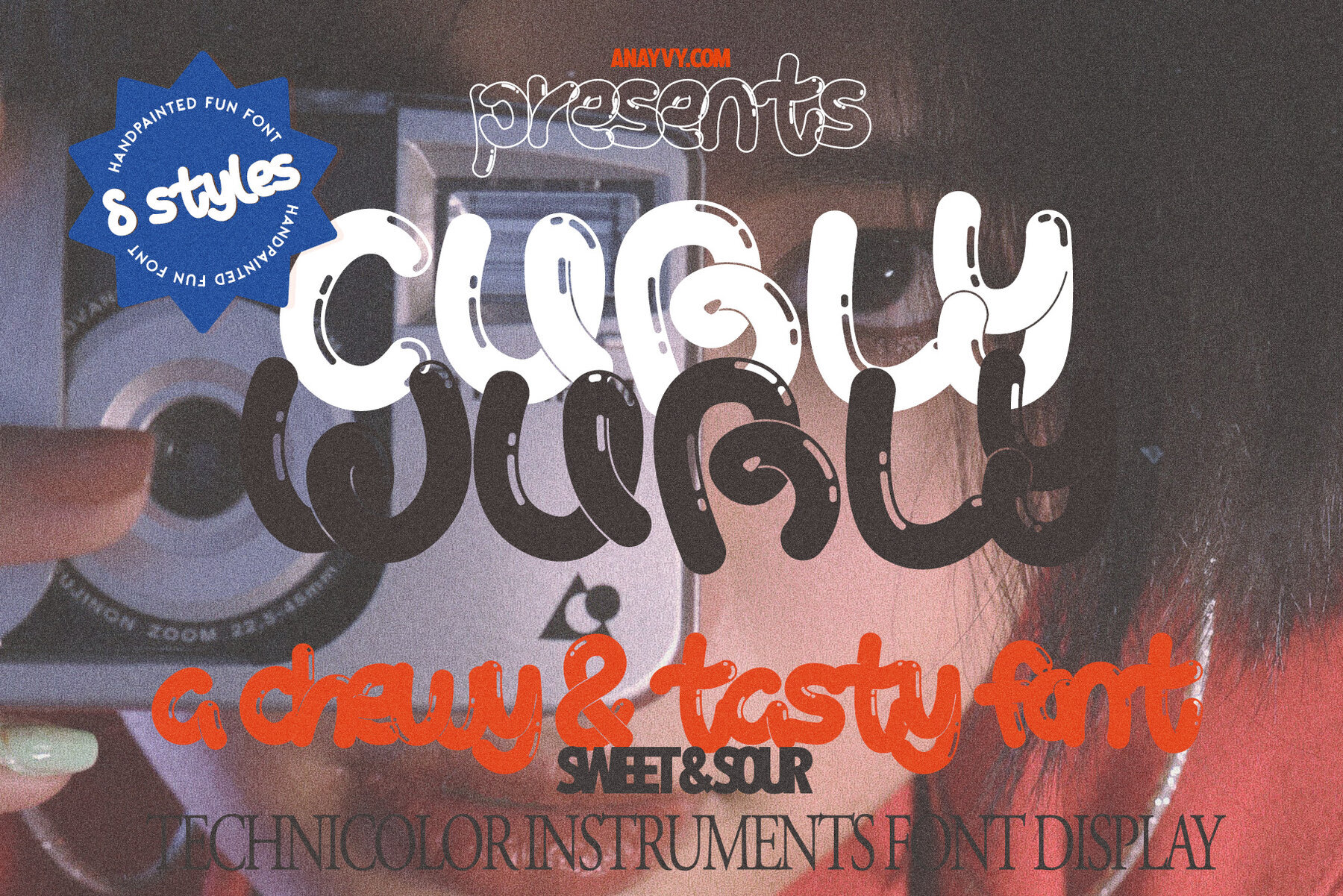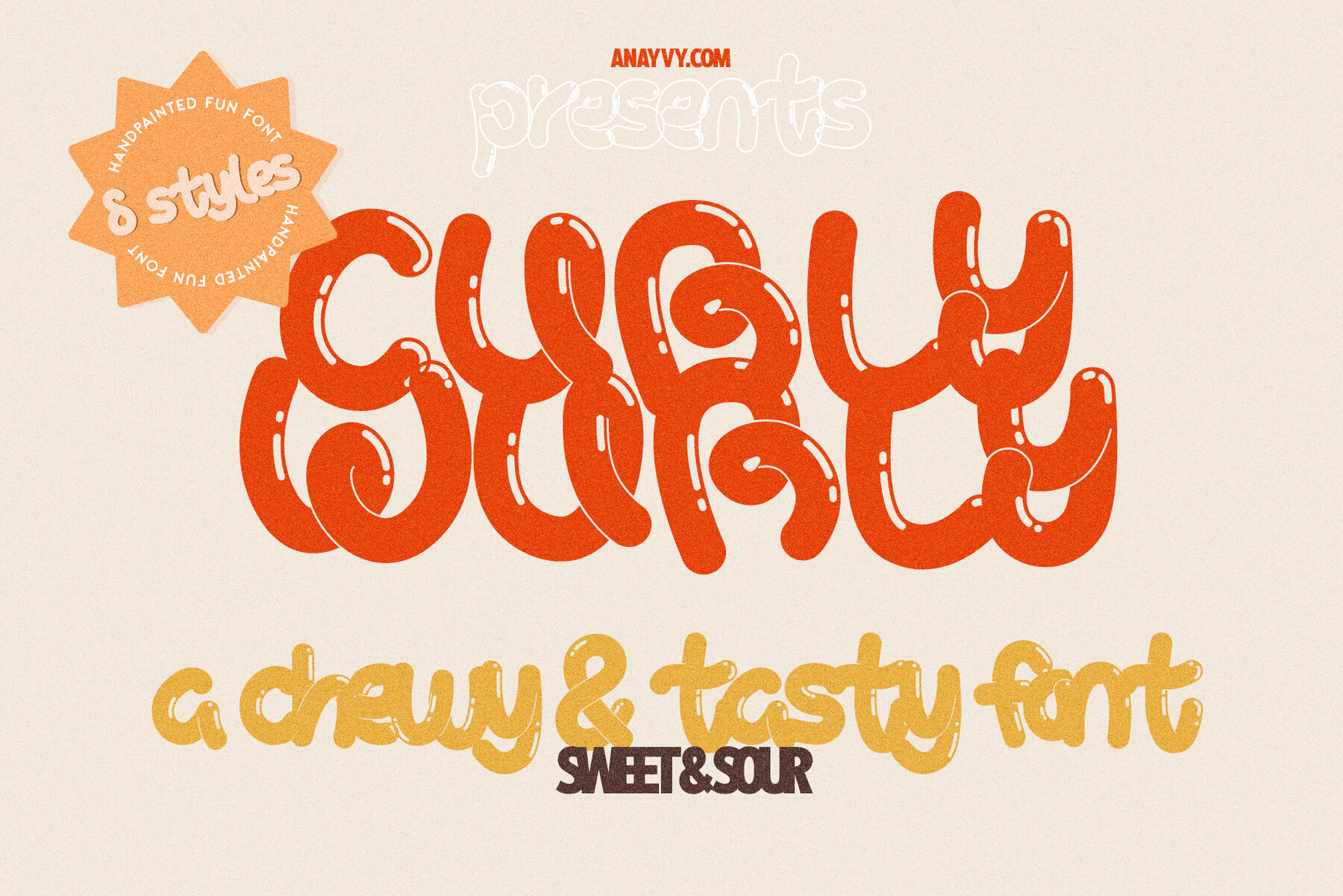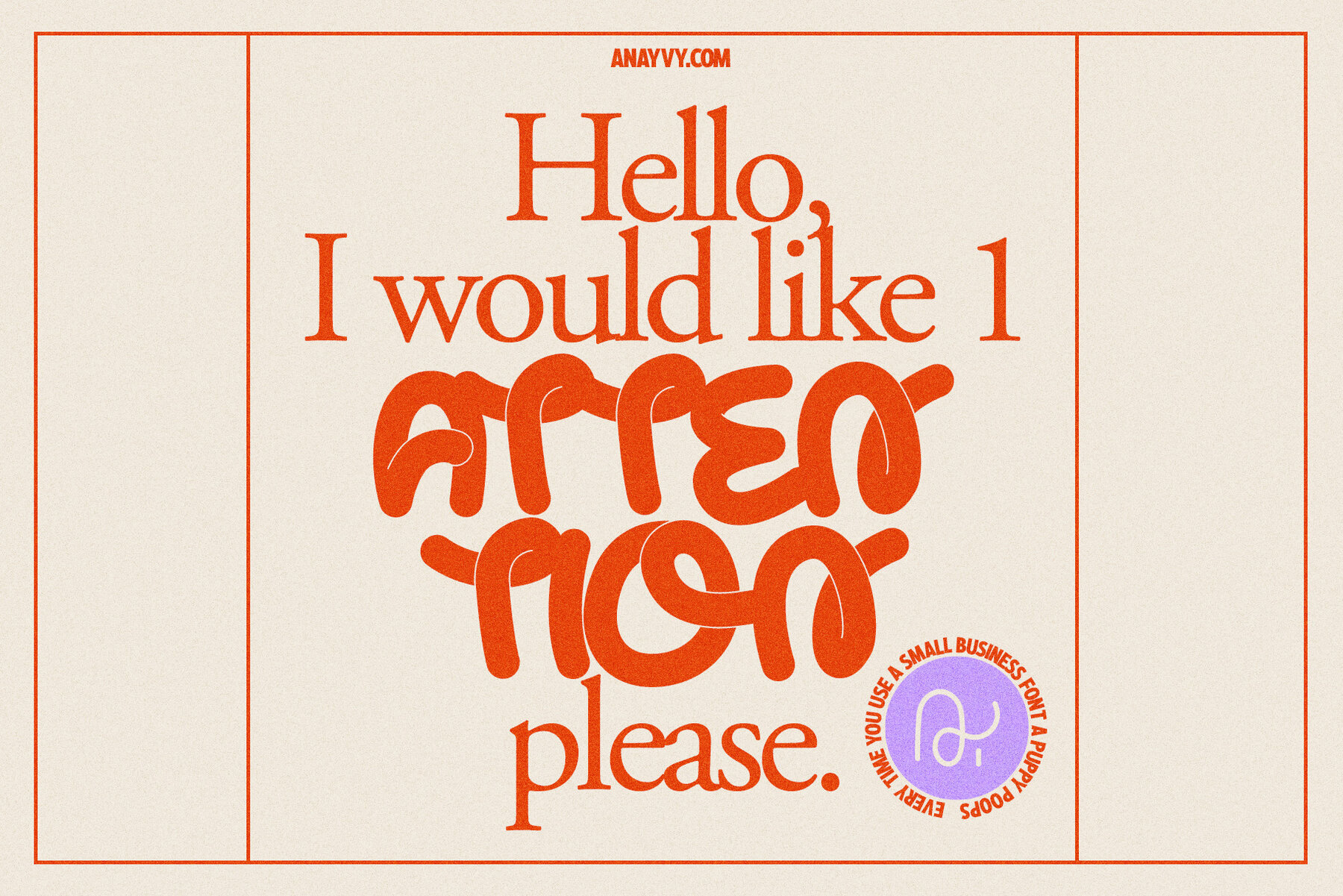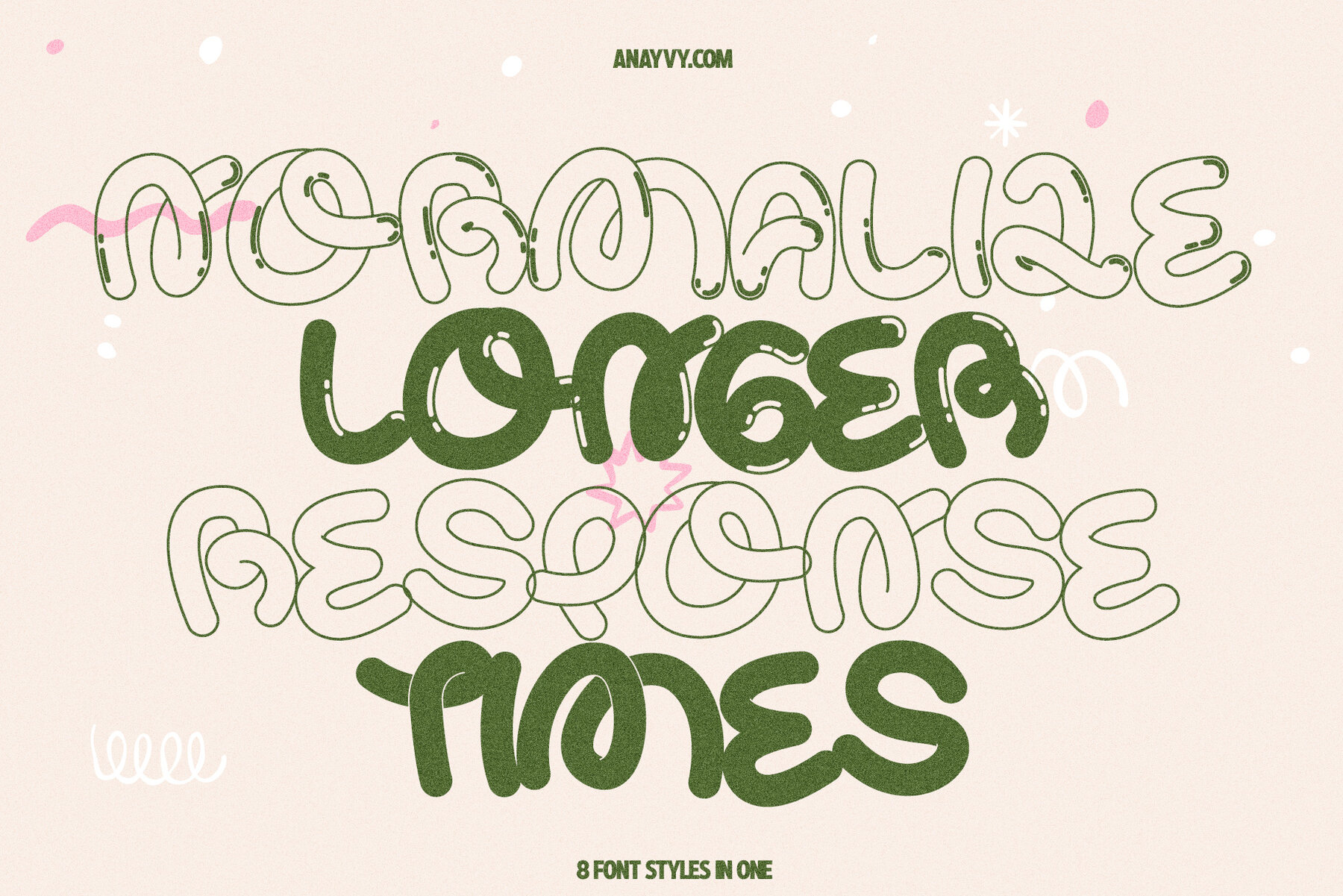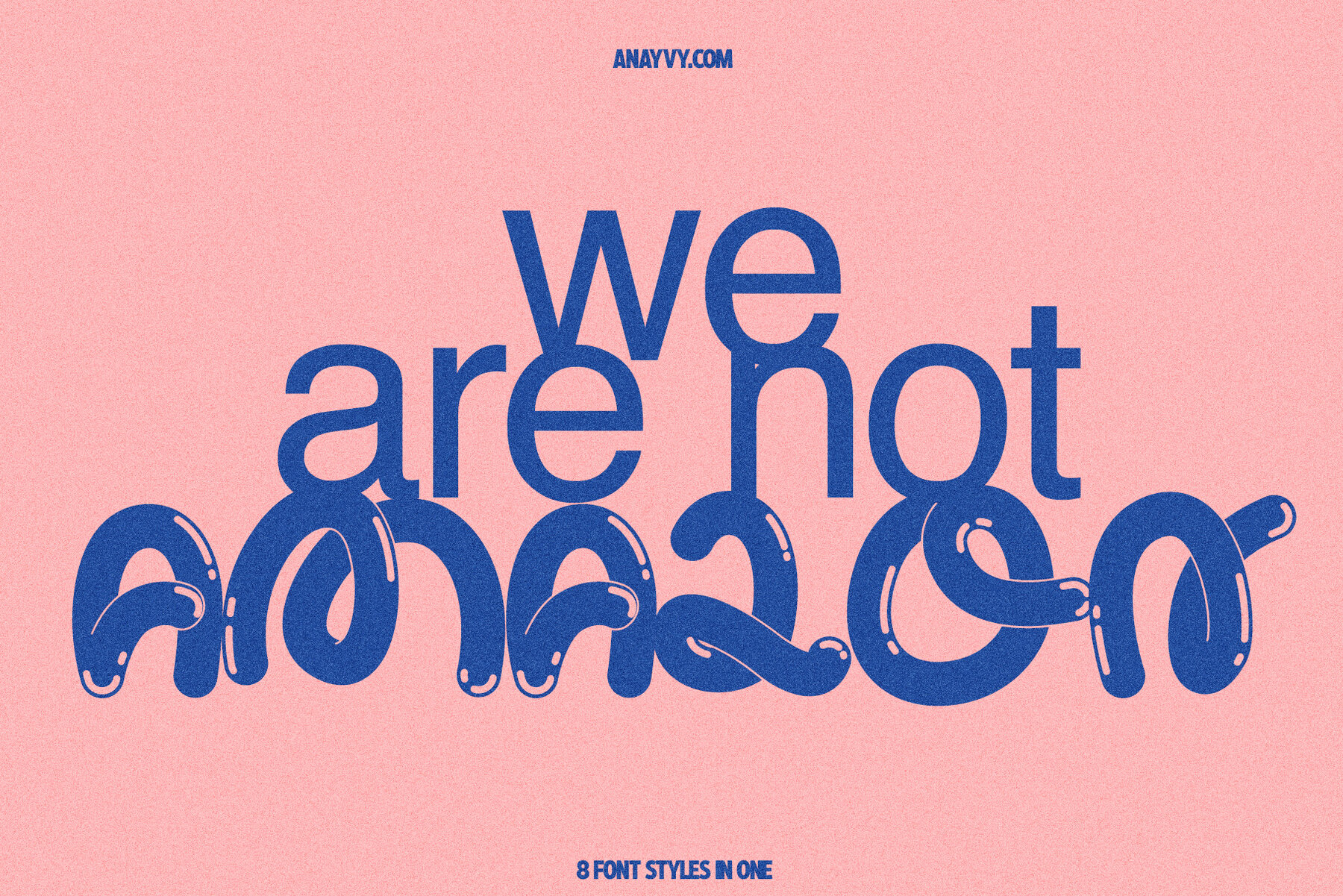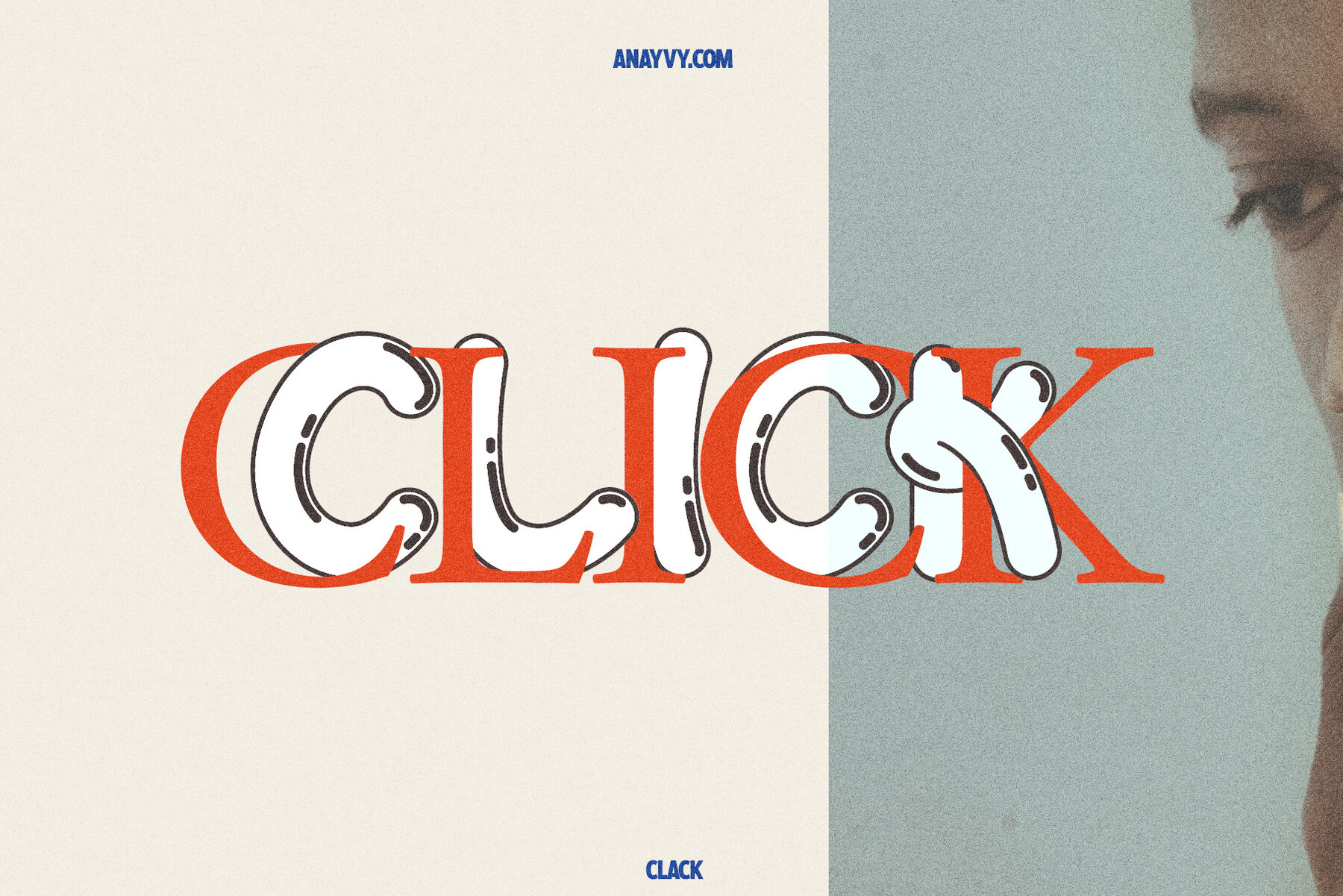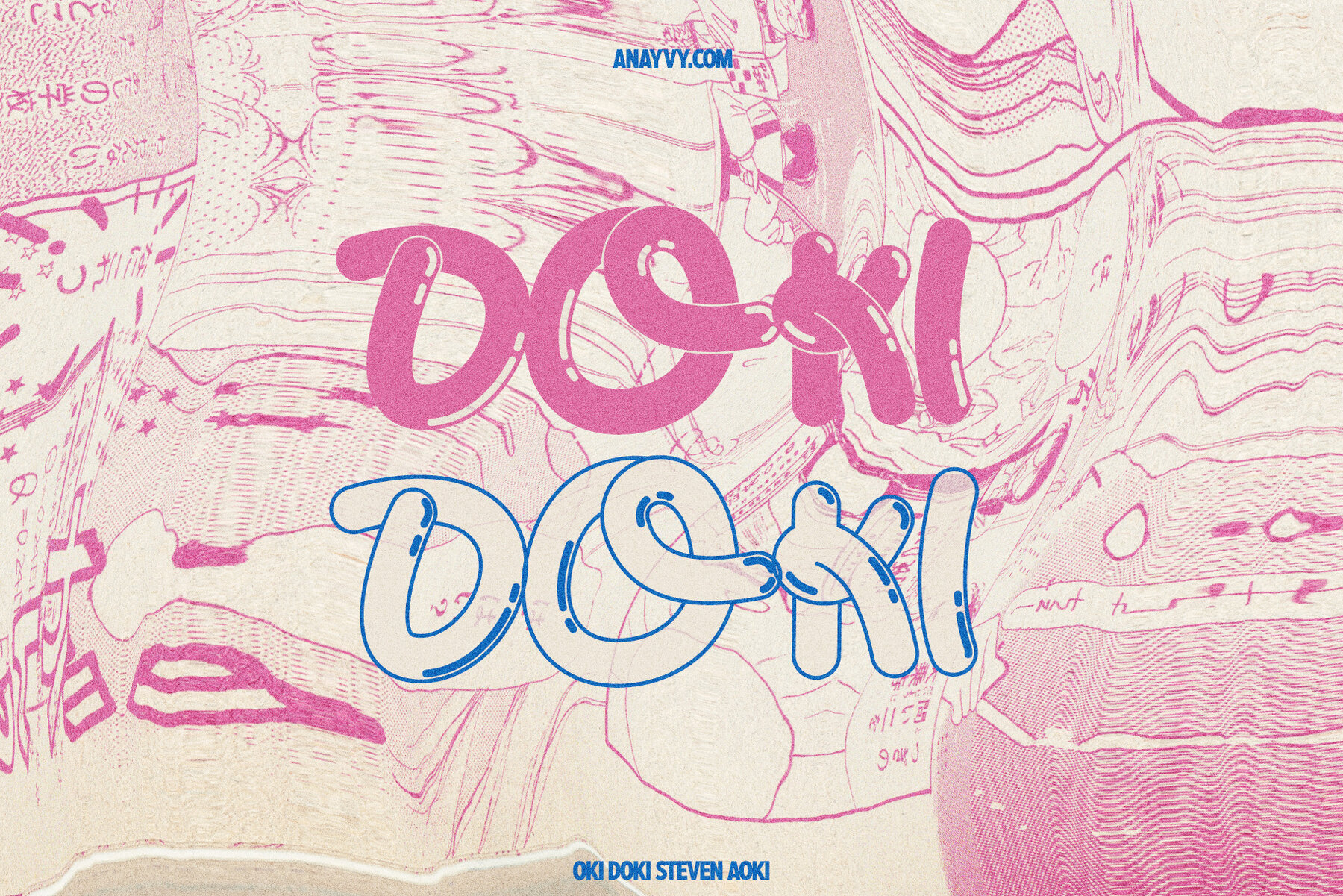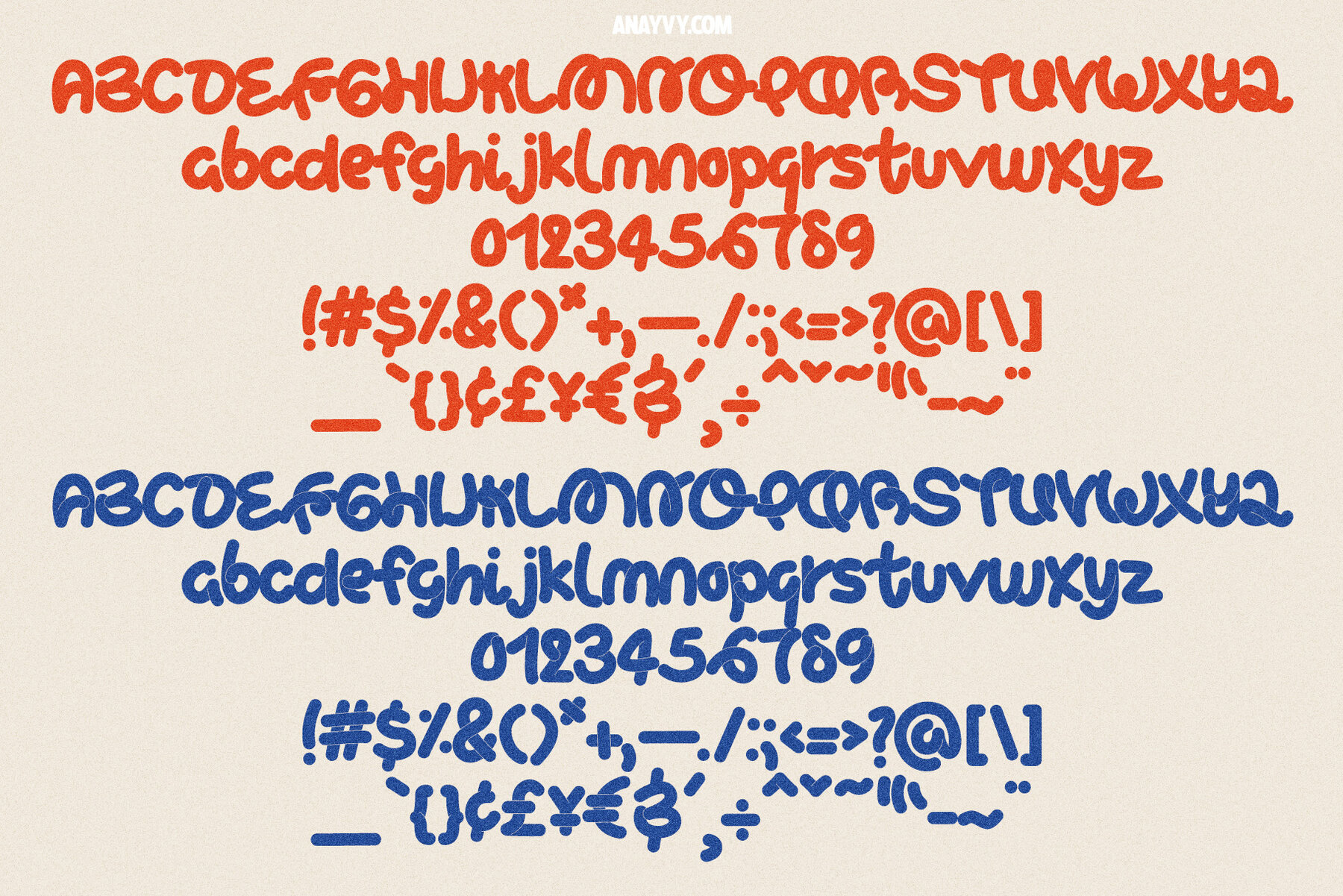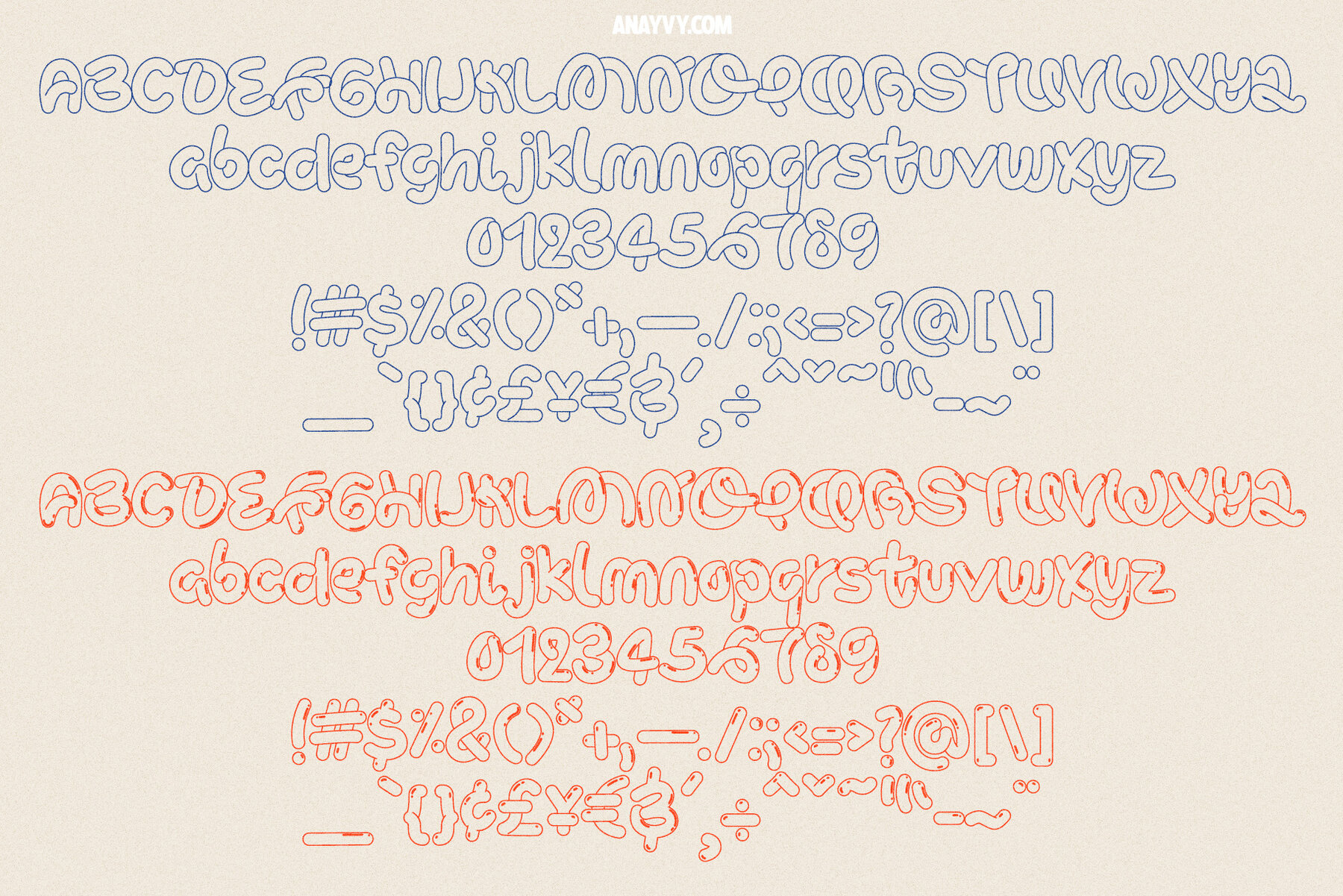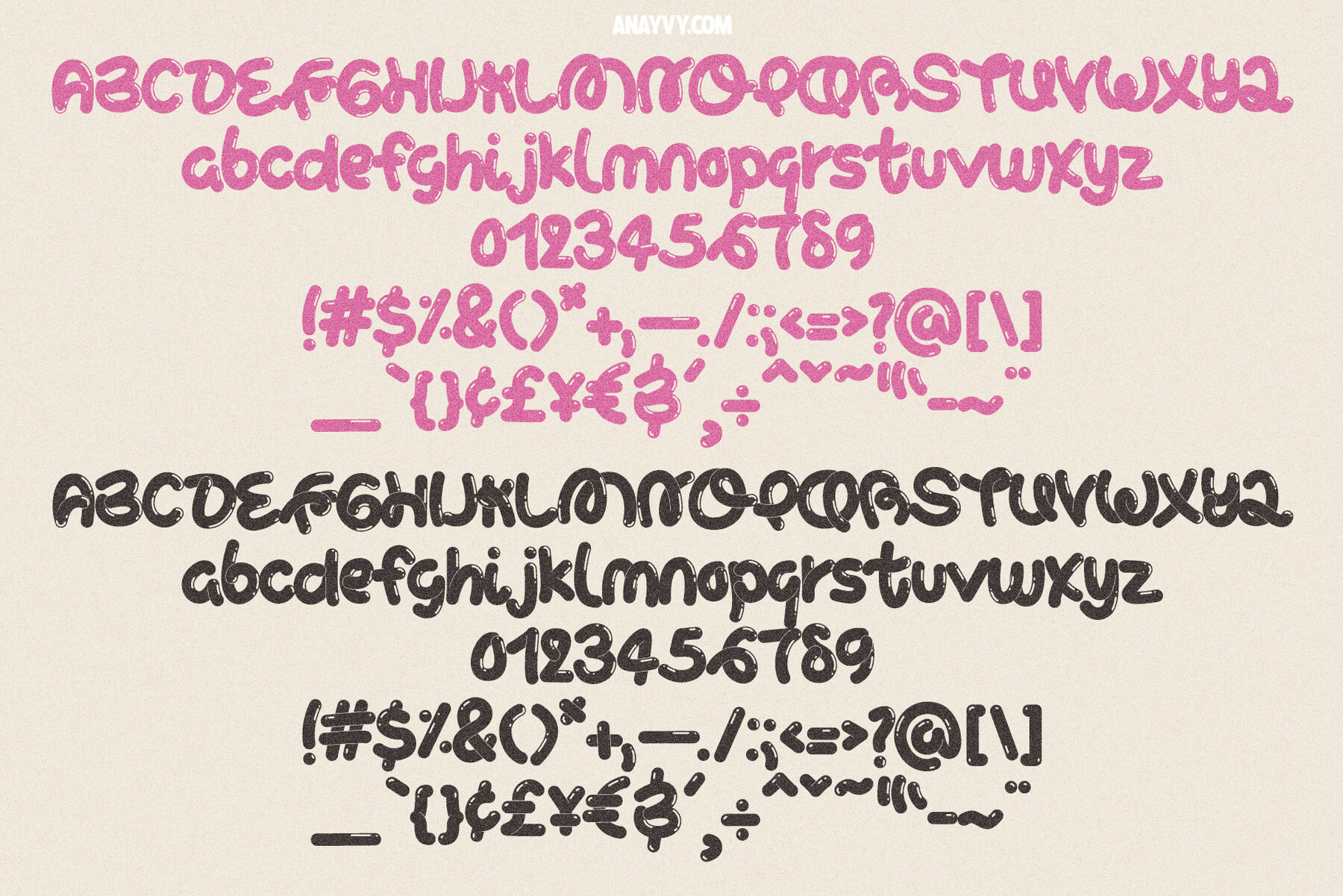
Curly Wurly Font
Venture back to the spirited 90s with Curly Wurly, a dynamic and vivacious font family that embodies the playful essence of graffiti. Designed to evoke a sense of editorial flair, this typeface merges nostalgia with contemporary design needs. With eight unique styles, Curly Wurly offers both diversity and adaptability for a variety of creative projects. Note that the gloss and outline variations may require minor adjustments in spacing to align perfectly with the black cutout versions, offering flexibility to customize spacing and kerning according to specific project needs.Curly Wurly: 90s Editorial Graffiti Font